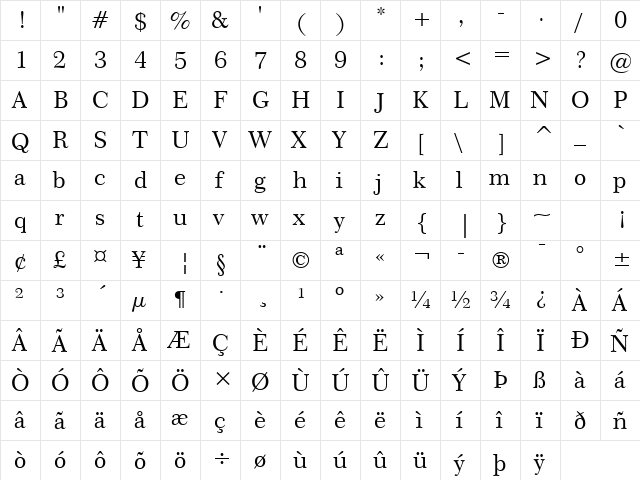
Century751 BT Roman Font Preview
Century751 BT Roman
Design Context for Century751 BT Typeface
Century751 BT offers clean, dependable letterforms without strong stylistic allegiance, making it a practical choice for designers who need flexibility.